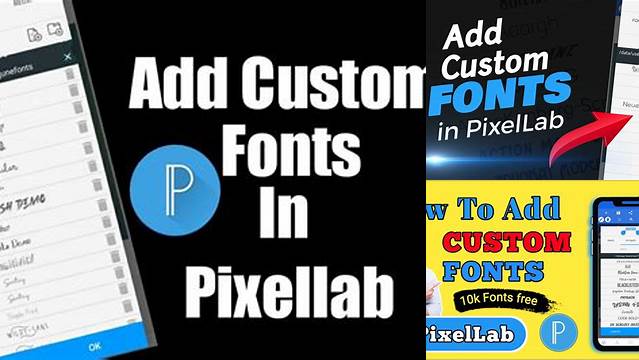
Create Custom Fonts In PixelLab: A Complete Guide
Hey guys! Ever wondered how to make your own fonts in PixelLab? It's super cool, right? Imagine designing text that's totally unique to you, adding that personal touch to all your projects. Well, you're in the right place! This guide will walk you through everything you need to know to create and use your own fonts in PixelLab. We're going to break it down step-by-step, so even if you're a total beginner, you'll be designing awesome fonts in no time. Let's dive in!
1. Understanding PixelLab and Font Creation
Before we jump into the nitty-gritty, let's get a handle on what PixelLab is and why making your own fonts is such a game-changer. PixelLab is a fantastic mobile app for graphic design, especially when it comes to text-based designs. Think of logos, posters, social media graphics – PixelLab can handle it all. But why stick to the pre-installed fonts when you can create something truly original? Making your own fonts lets you express your creativity like never before, giving your projects a unique identity. When you make your own fonts in PixelLab, you are not only adding a personal touch but also ensuring that your designs stand out from the crowd. This is particularly important for branding purposes, where consistency and uniqueness are key. Using custom fonts can help reinforce your brand's identity and make your designs instantly recognizable. So, let's get started and unleash your inner font designer!
2. Why Create Your Own Fonts?
Okay, so why go through the effort of creating your own fonts? Well, there are tons of reasons! First off, it gives you total control over the look and feel of your text. You're not limited by what's already available; you can design something that perfectly matches your vision. Think about it: you can craft a font that perfectly embodies your brand's personality or the mood of your design. Plus, it’s just plain fun! It's like learning a new artistic skill. When you make your own fonts in PixelLab, you're essentially becoming a digital calligrapher, shaping and molding letters to your liking. The sense of accomplishment you get from seeing your font used in a project is amazing. Furthermore, custom fonts can help you stand out in a crowded digital landscape. In a world where everyone is using the same stock fonts, your unique creation will grab attention and make your work memorable. So, if you're looking to elevate your designs and express your creativity, creating your own fonts is the way to go.
4. Font Design Principles
Before you start drawing letters, it's a good idea to brush up on some basic font design principles. This will help you create fonts that are not only visually appealing but also readable and functional. One key principle is consistency. Make sure your letterforms share similar characteristics, such as stroke thickness, slant, and overall shape. This creates a cohesive look and feel. Another important aspect is spacing. The space between letters (kerning) and words (tracking) can greatly affect readability. Pay attention to these details to ensure your font is easy on the eyes. Also, consider the x-height, which is the height of the lowercase letters. A well-balanced x-height contributes to a font's readability and aesthetic appeal. Don’t forget about the baseline, the invisible line on which the letters sit. Maintaining a consistent baseline is crucial for creating a professional-looking font. Lastly, think about the overall style and personality of your font. Do you want it to be modern, classic, playful, or serious? Keeping these principles in mind as you make your own fonts in PixelLab will help you create stunning and effective typefaces.
6. Sketching Your Font Ideas
Before you start digitizing your font, it's a great idea to sketch out your ideas on paper. This lets you experiment with different letterforms and styles without getting bogged down in the technical details. Grab a pencil and paper (or your stylus and tablet) and start doodling! Think about the overall style you want your font to have. Is it elegant and script-like? Bold and blocky? Quirky and playful? Sketch out the basic letterforms first, focusing on the uppercase letters and the lowercase "a" and "g". These letters often set the tone for the rest of the font. Pay attention to the proportions and the relationships between the letters. Are the strokes thick or thin? Are the letters wide or narrow? Don't worry about making everything perfect at this stage. The goal is to get your ideas down on paper and explore different possibilities. Sketching is a crucial step when you make your own fonts in PixelLab, as it helps you refine your vision and create a strong foundation for your digital font.
7. Designing the Basic Characters
Once you've got some sketches you're happy with, it's time to start designing the basic characters in your font creation app. This usually includes the uppercase and lowercase letters, numerals (0-9), and some basic punctuation marks like periods, commas, and question marks. Start with the letters that you feel most confident about. This will help you build momentum and establish the style of your font. Focus on creating consistent shapes and proportions. If you're using a grid system in your app, make sure your letters align properly. Pay attention to the stroke thickness and the overall weight of the letters. Are they bold and heavy, or light and delicate? As you design each letter, compare it to the others to ensure consistency. Use the copy-and-paste function to duplicate elements that are repeated in different letters, like the curves in the "o" and "c". Remember, you don't have to design every single character at this stage. Focus on getting the core set of characters right, and you can always add more later. Designing the basic characters is a crucial step when you make your own fonts in PixelLab, as it sets the foundation for your entire typeface.
8. Creating Uppercase Letters
Let's dive into creating those uppercase letters! These are often the first impression of your font, so it's important to get them right. Think about the overall style and how you want your uppercase letters to interact with the lowercase. Do you want them to be bold and commanding, or more subtle and elegant? Start with the letters that you find most interesting or challenging. This can help you establish the unique characteristics of your font. Pay close attention to the proportions and the relationships between the letters. Are the uppercase letters wider or narrower than the lowercase? How do they connect to each other visually? Use consistent stroke thicknesses and shapes to create a cohesive look. Don't be afraid to experiment and try different approaches. You can always undo or modify your designs later. As you make your own fonts in PixelLab, remember that the uppercase letters should complement the lowercase and create a harmonious whole. Take your time, and enjoy the process of shaping these important characters.
9. Designing Lowercase Letters
Now, let's tackle the lowercase letters. These are the workhorses of most fonts, so it's crucial to make them readable and visually appealing. Pay special attention to the x-height, which is the height of the lowercase letters. A well-balanced x-height contributes to a font's overall readability. Think about how the lowercase letters interact with the uppercase. Do they have a similar style and feel? Are they proportional to each other? Focus on creating consistent shapes and strokes. The lowercase "a" and "g" are often considered key letters, as they can influence the style of the rest of the font. Experiment with different terminals (the ends of the strokes) and serifs (the small decorative strokes at the ends of some letters). These details can greatly impact the personality of your font. As you make your own fonts in PixelLab, remember that the lowercase letters should be easy to read and blend seamlessly with the uppercase. Take your time, and pay attention to the details.
10. Adding Numbers and Symbols
Alright, we've got the letters covered, but what about numbers and symbols? These characters are just as important as letters, especially if you plan to use your font for things like posters, websites, or documents. The style of your numbers and symbols should match the overall aesthetic of your font. If your font is elegant and serifed, your numbers and symbols should reflect that. If it's modern and sans-serif, keep them clean and simple. Pay attention to the proportions and spacing of the numbers. They should be easy to read and blend seamlessly with the letters. Symbols like punctuation marks, currency symbols, and mathematical symbols should also be consistent with your font's style. Consider the weight and stroke thickness of these characters. Are they too heavy or too light compared to the letters? As you make your own fonts in PixelLab, remember that the numbers and symbols are an integral part of your typeface. Don't neglect them!
11. Kerning and Spacing Your Font
Okay, so you've designed your letters, numbers, and symbols. Awesome! But the job's not quite done yet. Now it's time to fine-tune the spacing between the characters. This is called kerning and spacing, and it's crucial for making your font readable and professional-looking. Kerning refers to the space between individual letter pairs. Some letter combinations, like "AV" or "To", can look awkward if they're not properly kerned. You might need to manually adjust the spacing to make them look balanced. Spacing, on the other hand, refers to the overall space between all the letters in your font. If the spacing is too tight, the letters will look cramped and difficult to read. If it's too wide, the letters will look isolated and disconnected. Most font creation apps have tools for adjusting kerning and spacing. Take the time to experiment and find the right balance. Print out samples of your font and examine them closely. You might even want to get feedback from others. Proper kerning and spacing are essential when you make your own fonts in PixelLab, as they can make or break the readability of your typeface.
12. Exporting Your Font from the Creation App
You've designed your font, tweaked the kerning and spacing, and now you're ready to unleash it on the world! The next step is to export your font from the creation app. Most font creation apps support several different font formats, but the most common and widely compatible format is TTF (TrueType Font). TTF fonts work on both Windows and macOS, and they're also supported by most mobile devices and web browsers. Some apps may also offer other formats like OTF (OpenType Font), which has some advanced features but isn't always universally supported. When exporting, you'll usually have some options to choose from, such as font name, font family, and font style (e.g., regular, bold, italic). Make sure to give your font a clear and descriptive name. You'll also want to choose a font family name that groups related fonts together (e.g., "MyFont Regular", "MyFont Bold"). Once you've selected your options, export the font file. The process will vary slightly depending on the app you're using, but it's usually pretty straightforward. Exporting your font is a crucial step when you make your own fonts in PixelLab, as it's what turns your digital design into a usable font file.
13. Importing Fonts into PixelLab
Alright, you've got your font file, and now it's time to bring it into PixelLab! This is where the magic happens, and you can finally see your creation in action. The process of importing fonts into PixelLab is pretty simple. First, you'll need to transfer the font file to your mobile device. You can do this by emailing it to yourself, using a cloud storage service like Google Drive or Dropbox, or connecting your device to your computer with a USB cable. Once the font file is on your device, open PixelLab. Tap on the "A" icon at the bottom of the screen to access the text settings. Then, tap on "Fonts". You'll see a list of pre-installed fonts, along with two tabs: "My Fonts" and "Recent". Tap on "My Fonts". Then, tap the "+ File" icon or the "+ Folder" icon, depending on where you saved your font file. Navigate to the location of your font file and select it. PixelLab will import the font, and it will appear in your "My Fonts" list. Now you can select your custom font and use it in your designs! Importing fonts is the final step when you make your own fonts in PixelLab, and it's incredibly satisfying to see your creation come to life.
14. Using Your Custom Font in PixelLab Projects
Okay, you've imported your font into PixelLab – now let's put it to work! Using your custom font in PixelLab projects is just like using any other font. When you add text to your design, simply select your font from the "My Fonts" list. You can then adjust the size, color, and other properties of the text as needed. Experiment with different effects and styles to see how your font looks in various contexts. Try using it for headlines, body text, logos, and more. Pay attention to how the font interacts with other elements in your design. Does it complement the overall aesthetic? Does it convey the right message? Don't be afraid to tweak your font if needed. You can always go back to your font creation app and make adjustments. The best part about using your own font is that it adds a unique and personal touch to your projects. It sets your designs apart and helps you stand out from the crowd. Using your custom font is the payoff for all the hard work you put in when you make your own fonts in PixelLab!
15. Troubleshooting Font Issues in PixelLab
Sometimes, things don't go exactly as planned. You might encounter issues when importing or using your custom font in PixelLab. Don't worry, it happens to the best of us! Here are some common issues and how to troubleshoot them. If your font doesn't appear in the "My Fonts" list after importing, make sure you've saved it in a compatible format (TTF is the most reliable). Also, double-check that you've selected the correct font file and that it's not corrupted. If your font looks distorted or pixelated, it might be a scaling issue. Try adjusting the text size or the overall resolution of your design. If certain characters are missing or displaying incorrectly, it could be a font encoding problem. Try exporting your font with different encoding settings in your font creation app. If PixelLab crashes or freezes when you try to use your font, it might be a memory issue. Try closing other apps and freeing up some RAM on your device. If you're still having problems, try searching online for solutions or consulting the PixelLab documentation. Troubleshooting is a normal part of the process when you make your own fonts in PixelLab, so don't get discouraged. With a little persistence, you'll get your font working perfectly.
16. Exploring Different Font Styles
One of the coolest things about creating your own fonts is the freedom to explore different styles. You're not limited by what's already out there – you can design anything you can imagine! Think about different categories of fonts, like serif, sans-serif, script, display, and monospaced. Serif fonts have small decorative strokes at the ends of the letters, while sans-serif fonts don't. Script fonts resemble handwriting, while display fonts are designed for headlines and other large text. Monospaced fonts have a fixed width for each character, making them ideal for coding and other technical applications. Experiment with different weights and widths. Try creating a bold, heavy font, or a light, delicate one. Play with different letterforms and proportions. Try making your letters tall and narrow, or short and wide. Don't be afraid to break the rules and try something unconventional. The possibilities are endless when you make your own fonts in PixelLab. So, let your creativity run wild and see what you can come up with!
17. Serif vs. Sans-Serif Fonts
Let's talk about two major font categories: serif and sans-serif. Understanding the differences between these styles can help you make informed choices about your font designs. Serif fonts are characterized by the small decorative strokes, or serifs, at the ends of the letters. They often have a classic, elegant, or traditional feel. Serif fonts are commonly used for body text in books, newspapers, and magazines, as the serifs can help guide the eye and improve readability. Sans-serif fonts, on the other hand, lack these decorative strokes. They tend to have a clean, modern, and minimalist look. Sans-serif fonts are often used for headlines, logos, and digital interfaces, where readability is important at various sizes. When you make your own fonts in PixelLab, consider the purpose and context of your font. Will it be used for body text or headlines? Will it be displayed on a screen or in print? These factors can help you decide whether to create a serif or sans-serif font. Ultimately, the best choice depends on your personal preference and the overall aesthetic you're trying to achieve.
18. Script and Handwritten Fonts
If you're looking to add a personal and artistic touch to your designs, consider creating a script or handwritten font. These fonts mimic the fluidity and expressiveness of human handwriting. Script fonts are often elegant and formal, resembling calligraphy or cursive writing. They can be used for invitations, logos, and other designs where a touch of sophistication is desired. Handwritten fonts, on the other hand, tend to be more casual and informal. They can range from playful and whimsical to rugged and authentic. Handwritten fonts are great for adding a personal touch to social media graphics, posters, and other designs. When you make your own fonts in PixelLab, experiment with different writing styles and tools. Try using a calligraphy pen, a brush, or even your finger to create unique letterforms. Pay attention to the flow and rhythm of your writing. How do the letters connect to each other? Are the strokes thick or thin? The key is to capture the essence of handwriting while maintaining readability. With a little practice, you can create stunning script and handwritten fonts that add a personal touch to your projects.
19. Display Fonts for Impactful Designs
Display fonts are designed to grab attention and make a statement. They're often used for headlines, logos, posters, and other designs where impact is key. Display fonts can be bold, quirky, elegant, or anything in between. The key is to create something that stands out and reflects the personality of your brand or project. When you make your own fonts in PixelLab, display fonts offer a great opportunity to experiment and push the boundaries of typography. Try playing with unusual letterforms, exaggerated proportions, and unique details. Don't be afraid to break the rules and try something unconventional. Think about the message you want to convey and how your font can help you achieve that. A display font can be the perfect finishing touch for a memorable design. However, display fonts are not for body text or other long-form reading.
20. Monospace Fonts for Coding and Technical Use
Monospace fonts have a fixed width for each character, meaning that every letter, number, and symbol takes up the same amount of horizontal space. This is in contrast to proportional fonts, where the width of each character varies. Monospace fonts are commonly used for coding, as they make it easier to align code and spot errors. They're also used in typewriters and other applications where precise character alignment is important. While monospaced fonts can lack some visual appeal, the consistency in character spacing is vital in technical documentation and coding projects. When you make your own fonts in PixelLab, you can create a monospace font by ensuring that each character occupies the same width within your font creation app. Pay attention to the spacing and kerning to maintain readability, but always ensure each character takes up the exact same space. This type of font style ensures functionality and precision in your design.
21. Font Weight and Width Variations
When you make your own fonts in PixelLab, you have the opportunity to create variations in font weight and width, giving you greater control over the visual impact of your typography. Font weight refers to the thickness of the strokes in your letters, ranging from light to bold. Variations in weight can help you create visual hierarchy and emphasize certain words or phrases. Font width refers to how wide the letters are, ranging from condensed to expanded. Width variations can be used to fit more or less text into a given space, or to create different visual styles. Creating font weight variations typically involves designing different versions of your font with varying stroke thicknesses. This may require significant design work. For font width variations, you adjust the overall size of the characters to create a more condensed or expanded look, all while preserving the overall feel of the font. Incorporating weight and width variations into your font family gives you the flexibility to use your font in a wider range of design applications, making it a more versatile tool.
22. Combining Different Fonts in PixelLab
Knowing how to combine fonts effectively is a crucial skill for any designer. When you make your own fonts in PixelLab, you’ll likely want to use them in conjunction with other fonts to create visually appealing designs. The key to successful font pairing is to create contrast while maintaining harmony. One common approach is to pair a serif font with a sans-serif font. The contrast in style can create visual interest, while the consistent x-height and proportions ensure readability. You can also pair a display font with a simpler font for body text. The display font will grab attention for headlines and key messages, while the simpler font will ensure that the body text is easy to read. Another tip is to use different weights and styles within the same font family. For example, you could use a bold weight for headlines and a regular weight for body text. Experiment with different combinations and see what works best for your design. A good font pairing enhances the overall aesthetic and readability of your design, so take the time to find the right combination.
23. Creating Font Ligatures
Font ligatures are special characters that combine two or more letters into a single glyph. They're a great way to add a touch of elegance and uniqueness to your fonts. Ligatures are often used to improve the appearance of certain letter combinations that can look awkward when placed side-by-side, such as "fi", "fl", or "ff". When you make your own fonts in PixelLab, creating ligatures can give your typeface a more polished and professional look. The process of creating ligatures involves designing the combined glyphs and then programming them into your font using your font creation app. This typically involves using OpenType features, which allow you to specify when and how ligatures should be used. While creating ligatures can be a bit more complex than designing individual letters, the results are well worth the effort. Ligatures can add a subtle but significant refinement to your font, making it stand out from the crowd. They showcase attention to detail and creativity in your font design process.
24. Adding Special Characters and Glyphs
Adding special characters and glyphs to your font can greatly expand its versatility and usefulness. These characters can include things like currency symbols, mathematical symbols, punctuation marks, and accented letters. When you make your own fonts in PixelLab, including a comprehensive set of special characters and glyphs ensures that your font can be used in a wide range of contexts and languages. The process of adding these characters involves designing each glyph individually and then mapping them to the appropriate Unicode values within your font creation app. This can be a time-consuming process, but it's an important step in creating a professional-quality font. The extra effort spent incorporating a wide range of glyphs will make your font more versatile and user-friendly, making it an invaluable asset in a variety of design projects. Consider what types of projects your font is likely to be used for, and add the special characters that will be most relevant.
25. Testing Your Font's Readability
Before you finalize your font, it’s essential to test its readability. After you make your own fonts in PixelLab, the font must be legible in a variety of sizes and contexts to be truly useful. Poor readability can render a beautifully designed font impractical. Start by testing your font in different sizes, from small body text to large headlines. See how well the letters hold their shape and clarity at different scales. Pay attention to the spacing between letters and words. Is it too tight or too loose? Print out samples of your font and examine them closely. It’s often easier to spot readability issues in print than on a screen. Also, test your font with different background colors and textures. A font that looks great on a white background might not be as readable on a dark or textured background. Get feedback from others. Ask them to read passages of text set in your font and give you their impressions. Their feedback can help you identify any areas that need improvement. Testing readability is a crucial step in the font design process, ensuring that your font is not only visually appealing but also functional.
26. Getting Feedback on Your Font Design
Seeking feedback on your font design is crucial to improving its quality and usability. After you make your own fonts in PixelLab, getting opinions from other designers, typographers, and potential users can provide invaluable insights. Fresh eyes often catch details that you might have overlooked. Start by sharing your font with fellow designers and asking for constructive criticism. They can offer expertise on technical aspects, aesthetics, and overall design principles. Typographers can provide specialized feedback on kerning, spacing, and glyph design, ensuring your font meets professional standards. It's also important to get feedback from potential users who might not be designers. Ask them about the font's readability, its overall feel, and whether it suits their design needs. Be open to both positive and negative feedback. Criticism can be hard to hear, but it's essential for growth and improvement. Use the feedback you receive to refine your font and make it the best it can be. This collaborative approach ensures that your final product is both visually appealing and highly functional.
27. Refining Your Font Based on Feedback
Once you've gathered feedback on your font, the next step is to refine your design based on the insights you've gained. Refining is a crucial part of the font creation process. When you make your own fonts in PixelLab, you want to ensure that your finished product is polished and effective. Carefully review all the feedback you've received and identify the most common themes and concerns. Are there specific letters that people find difficult to read? Is the spacing inconsistent? Are there any stylistic elements that don't quite work? Prioritize the issues that will have the biggest impact on readability and usability. Start by addressing the most critical problems, such as issues with letterforms or spacing. Then, move on to smaller details, such as refining curves and adjusting stroke weights. Use your font creation app to make the necessary changes. Don't be afraid to experiment and try different solutions. It's an iterative process, and it may take several rounds of revisions to get your font just right. Throughout the refinement process, keep testing your font and seeking additional feedback. The goal is to create a font that is not only visually appealing but also highly functional and easy to use.
28. Creating Font Families
Creating font families is an excellent way to expand the versatility and usefulness of your fonts. A font family typically includes several variations of a typeface, such as different weights (e.g., light, regular, bold), styles (e.g., italic, condensed), and widths. This allows designers to use different variations of the same typeface to create visual hierarchy and interest in their designs, while maintaining a consistent overall look and feel. When you make your own fonts in PixelLab, creating a font family involves designing each variation separately, while ensuring that they all share the same fundamental characteristics. Start with your base font (usually the regular weight and width), and then create the other variations by modifying the stroke weights, proportions, and other design elements. For example, to create a bold version, you would increase the stroke thickness of the letters. To create an italic version, you would slant the letters and make other adjustments to their shapes. Creating a comprehensive font family can be a time-consuming process, but the results are well worth the effort. A well-designed font family provides designers with a versatile toolkit for creating effective and visually appealing typography.
29. Licensing Your Font
If you plan to distribute or sell your font, it's essential to understand font licensing. Font licenses define the terms and conditions under which your font can be used, and they protect your rights as the font's creator. When you make your own fonts in PixelLab, you automatically own the copyright to your design, but a font license clarifies the specific rights you are granting to others. There are several types of font licenses available, ranging from free and open-source licenses to commercial licenses. The type of license you choose will depend on your goals for your font. If you want to allow anyone to use your font for free, even for commercial projects, you might choose an open-source license like the SIL Open Font License (OFL). If you want to sell your font and control how it's used, you would typically use a commercial license. Commercial licenses often specify the number of users, the types of projects the font can be used for, and other restrictions. When creating a commercial license, it's a good idea to consult with a legal professional to ensure that your license is clear, enforceable, and tailored to your specific needs. Properly licensing your font ensures that you are protected and that users understand how they can legally use your work.
30. Selling Your Fonts Online
Once you've created a font you're proud of, you might want to consider selling it online. Selling your fonts can be a great way to earn income and share your creative work with the world. When you make your own fonts in PixelLab and decide to commercialize them, there are several platforms where you can sell your creations. Some popular options include MyFonts, Creative Market, Fontspring, and individual marketplaces. Each platform has its own fee structure, licensing terms, and audience, so it's essential to research and choose the one that best fits your needs. Before you start selling, you'll need to prepare your font files and create a compelling presentation for your font. This might include creating sample images showcasing your font in use, writing a descriptive sales copy, and setting a competitive price. You'll also need to decide on the licensing terms for your font. Do you want to offer a single-user license, a multi-user license, or other options? Once your font is listed for sale, it's important to promote it to your target audience. This might involve using social media, online forums, and email marketing to reach potential customers. Selling fonts online can be a rewarding experience, but it requires effort and dedication. By creating high-quality fonts and effectively marketing them, you can build a successful business and share your typographic talent with the world.